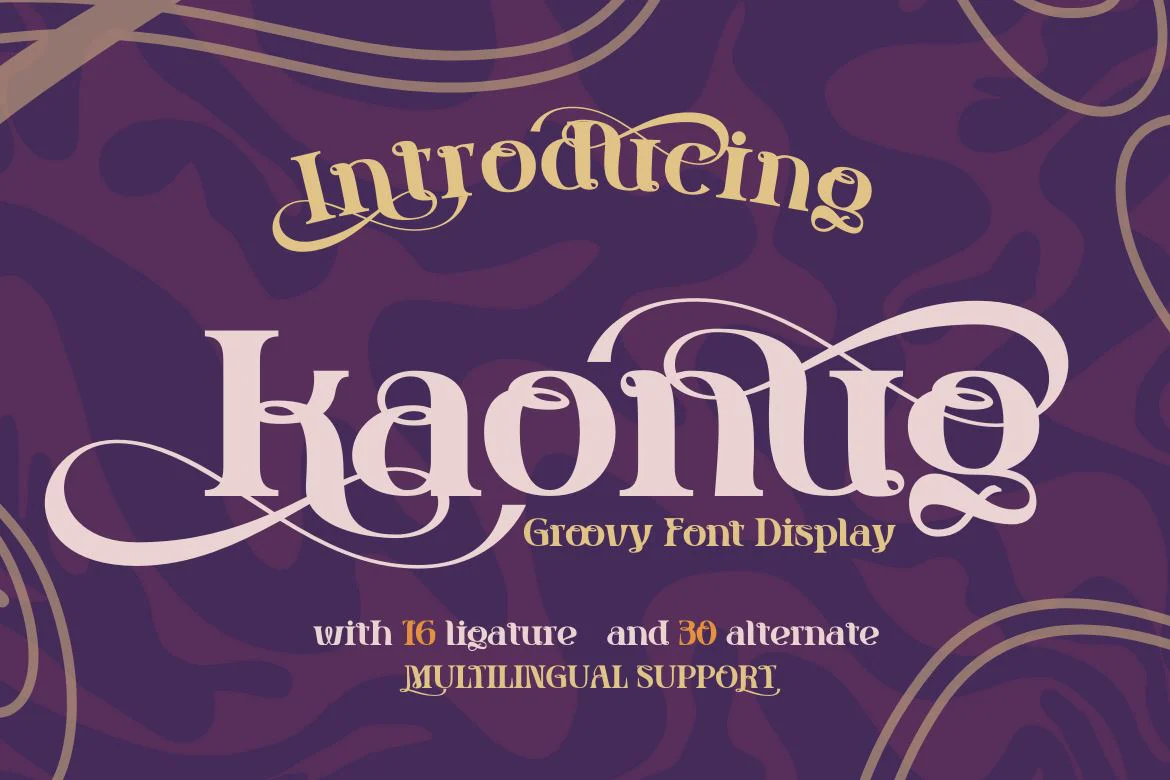
kaonug | Groovy Retro Font
This Kaonug display font will make your work stand out. It brings just the right amount of uniqueness and style to whatever project you’re working on, the anatomical shape of the letters makes it unique and artistic. This is a great font to use when creating logos, posters, advertisements, and all your projects or anything else that needs to stand out in a variety of media.